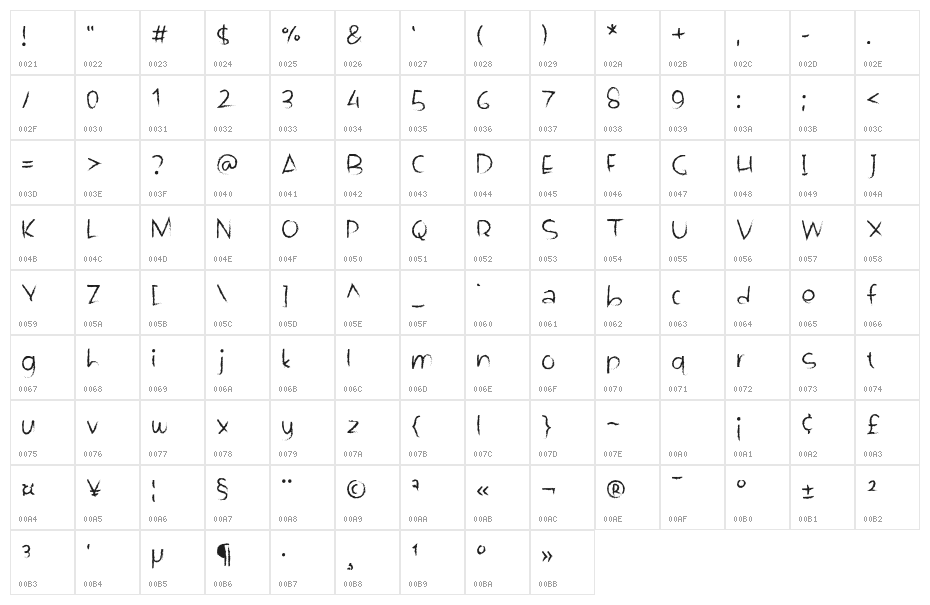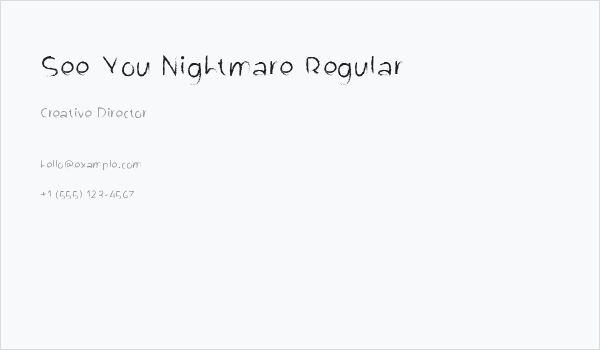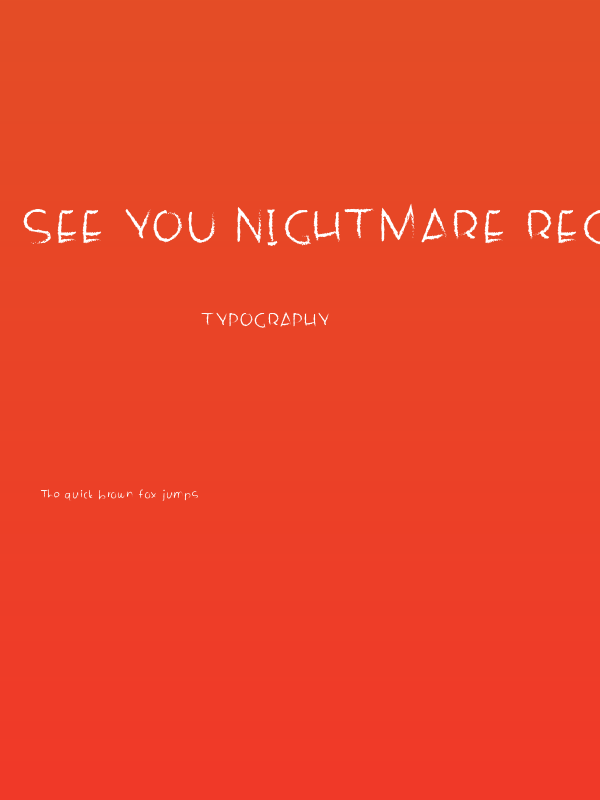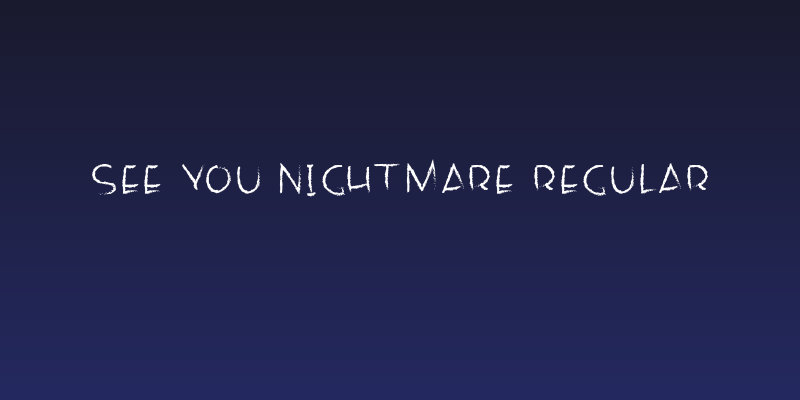
See You Nightmare Regular Font
See You Nightmare Regular Description
This font features a unique, hand-drawn style with a rough, textured appearance that mimics the look of chalk or crayon on a surface. The characters are slightly irregular, giving them a playful and informal feel. The uppercase letters are bold and prominent, while the lowercase letters maintain a consistent style with a slightly more delicate touch. Numbers and special characters follow the same design, ensuring a cohesive look across all text. The font's distinctive style makes it ideal for creative projects that require a touch of whimsy and individuality.
Use CaseHeadlines, Logos, Artistic projects
Proposed ProjectsIdeal for children's book covers, playful posters, creative branding, and artistic invitations.